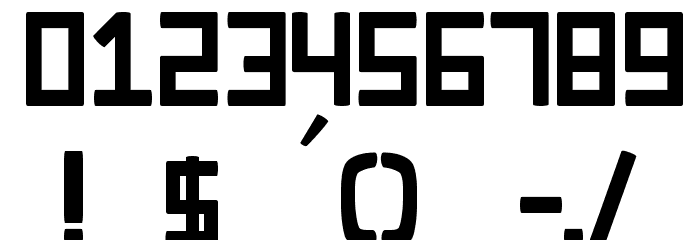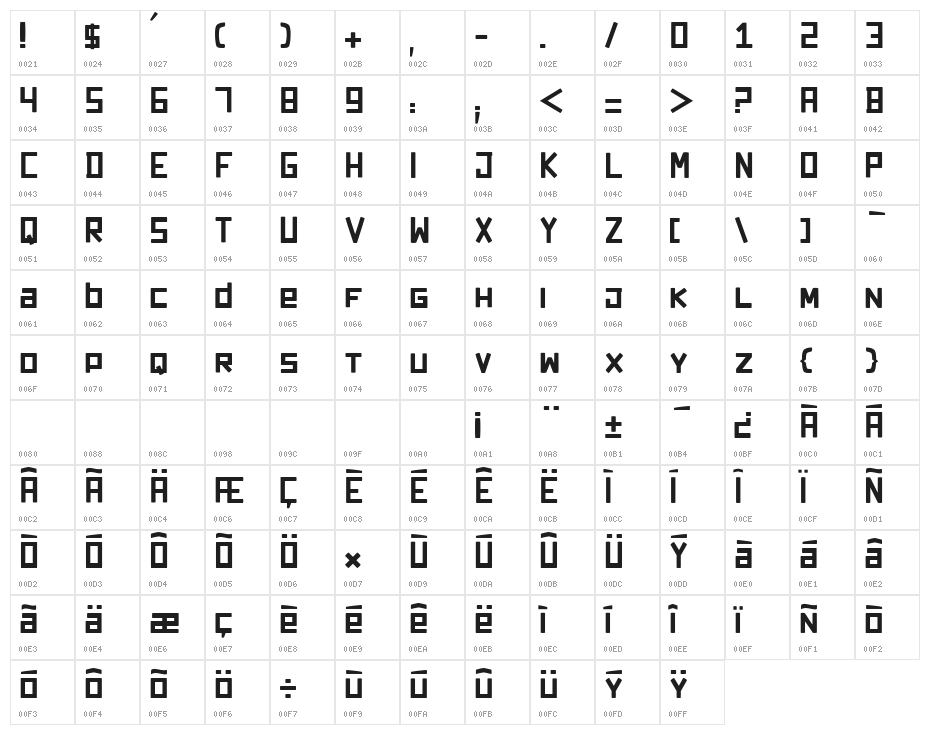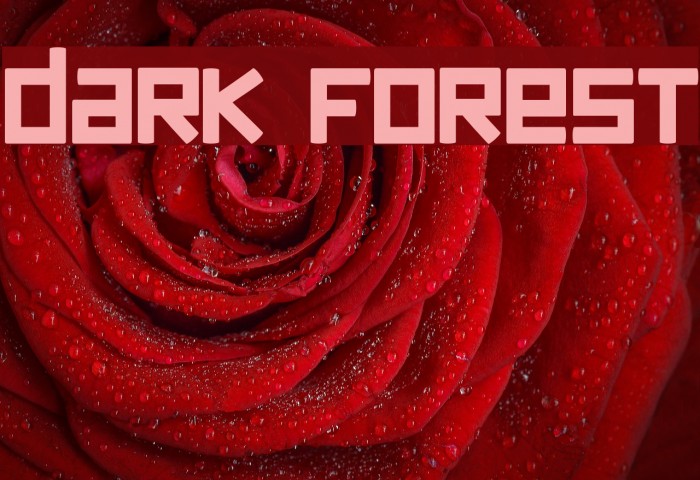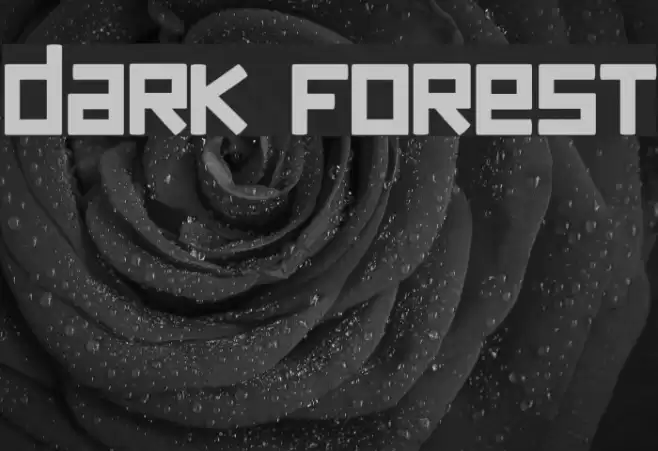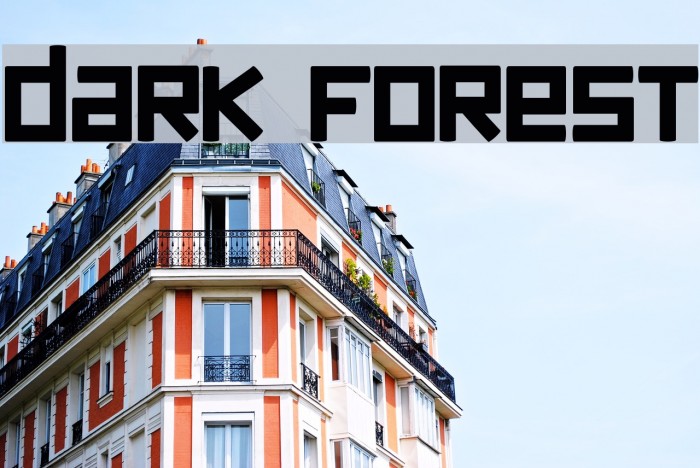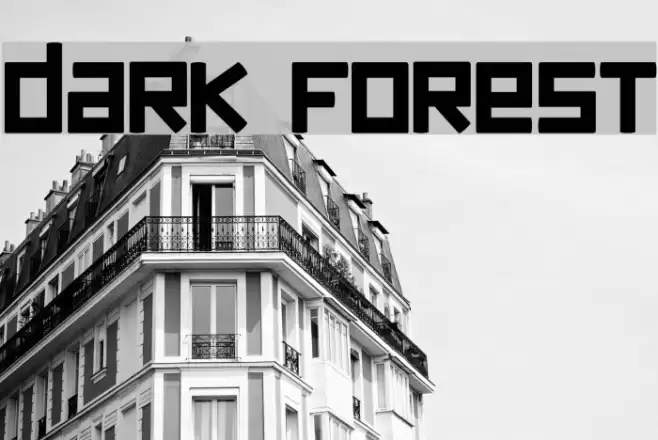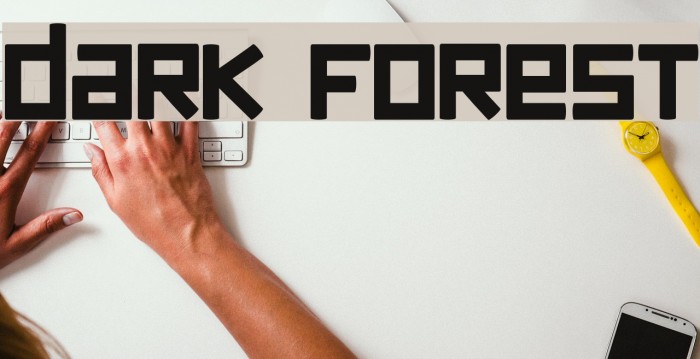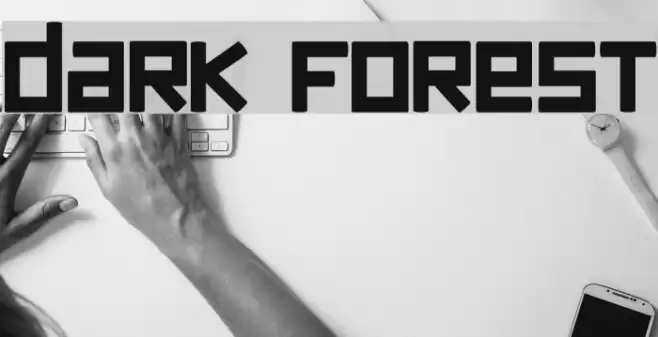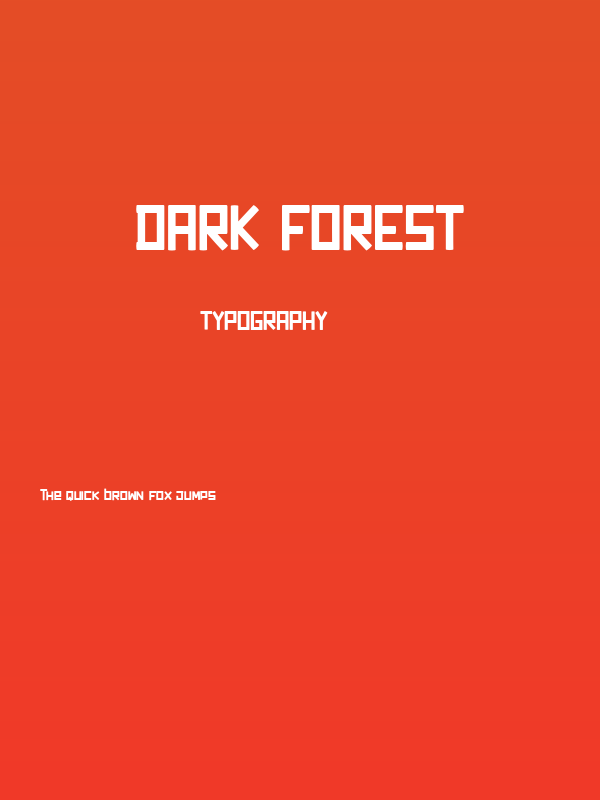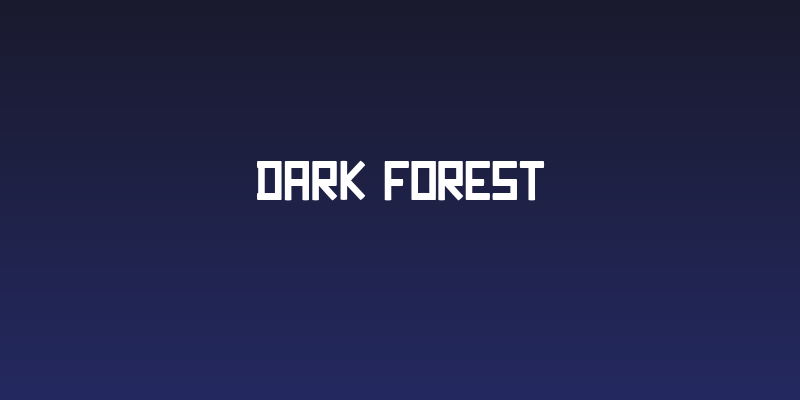
dark forest Font
dark forest Description
This font features a bold, geometric design with a modern and futuristic aesthetic. The characters are constructed with thick, uniform strokes, creating a strong and impactful presence. The angular shapes and sharp edges give it a distinct, tech-inspired look. The uppercase and lowercase letters maintain a consistent style, while the numerals and special characters complement the overall design. This font is ideal for projects that require a bold and assertive visual statement, such as technology branding, video game titles, or sci-fi themed graphics.
| Proposed Projects | Ideal for technology branding, video game titles, sci-fi graphics, and futuristic designs. |